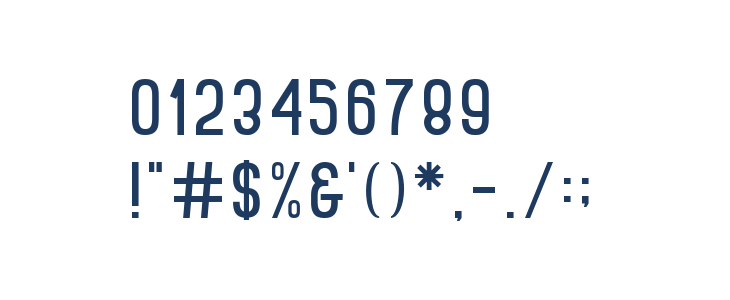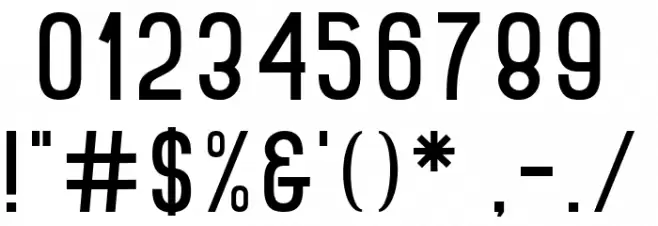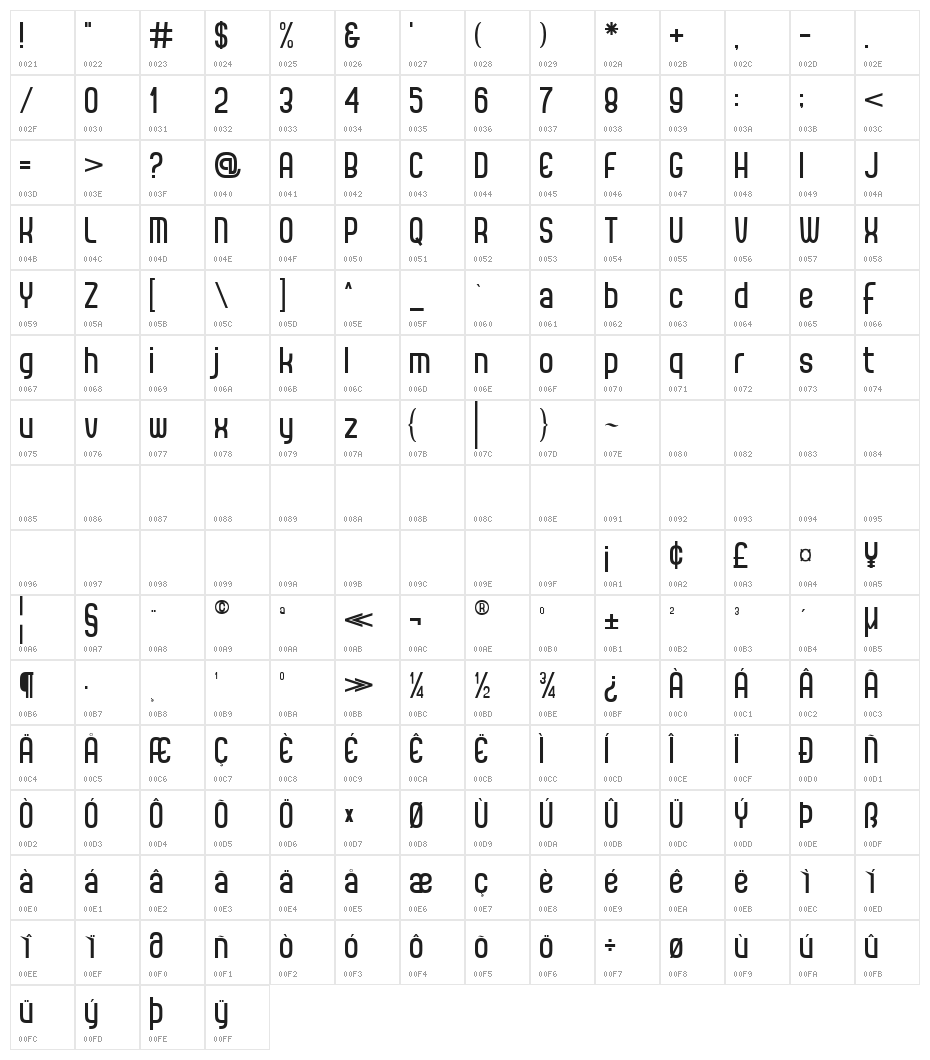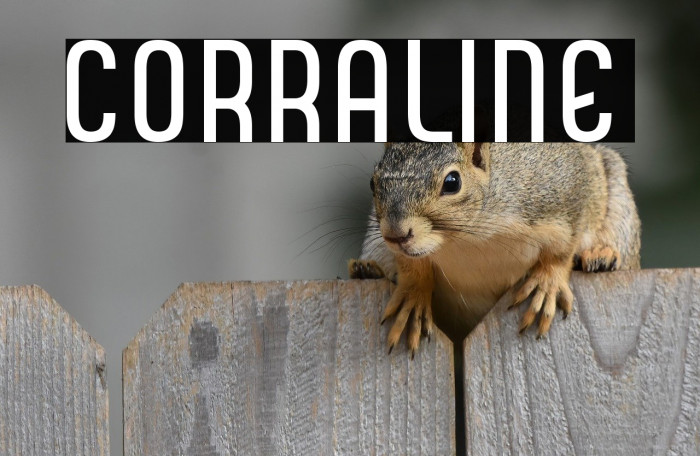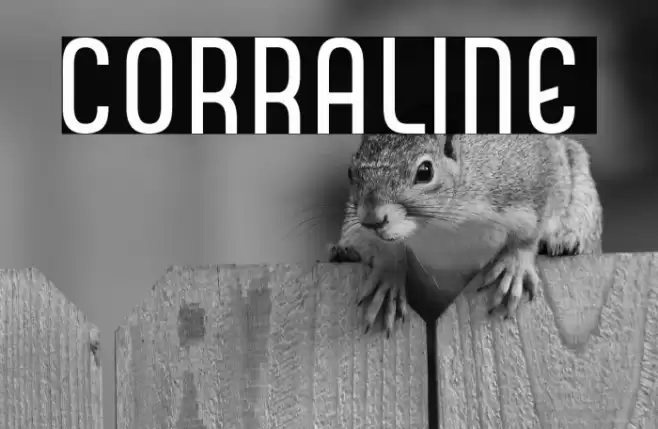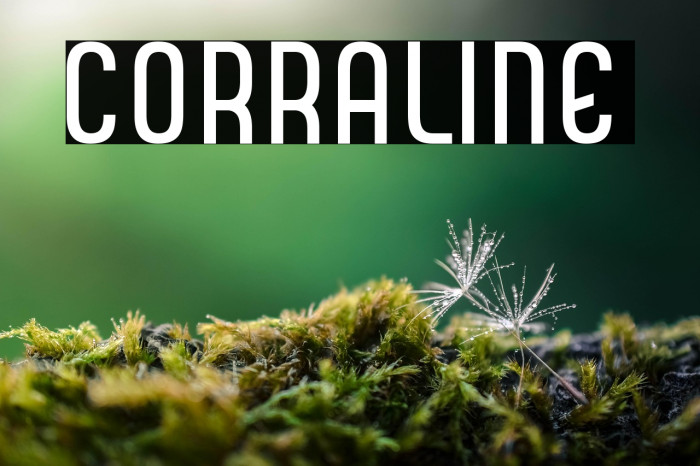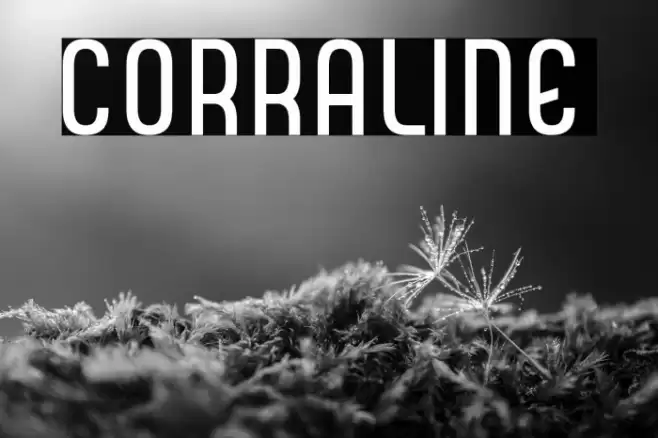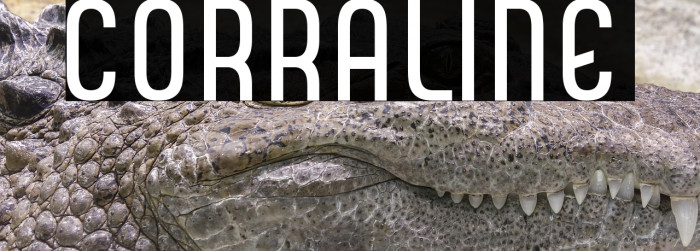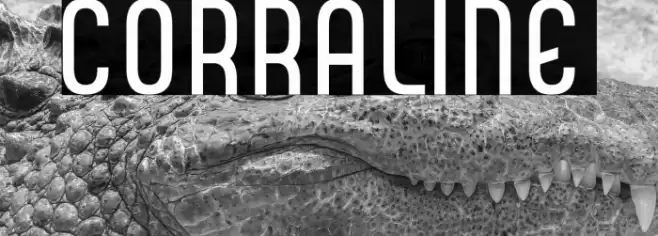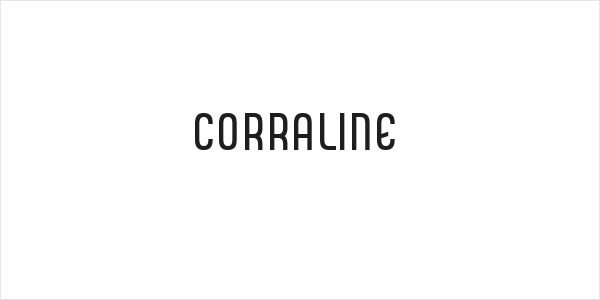
CORRALINE Font
CORRALINE Description
This font features a modern and sleek design with clean lines and a geometric structure. The uppercase letters are tall and narrow, while the lowercase letters maintain a consistent height, creating a harmonious balance. The numerals are well-proportioned, and the special characters are distinct, adding versatility to the font. The overall appearance is contemporary, making it suitable for a variety of design projects. Its uniform stroke width and minimal contrast give it a polished and professional look.